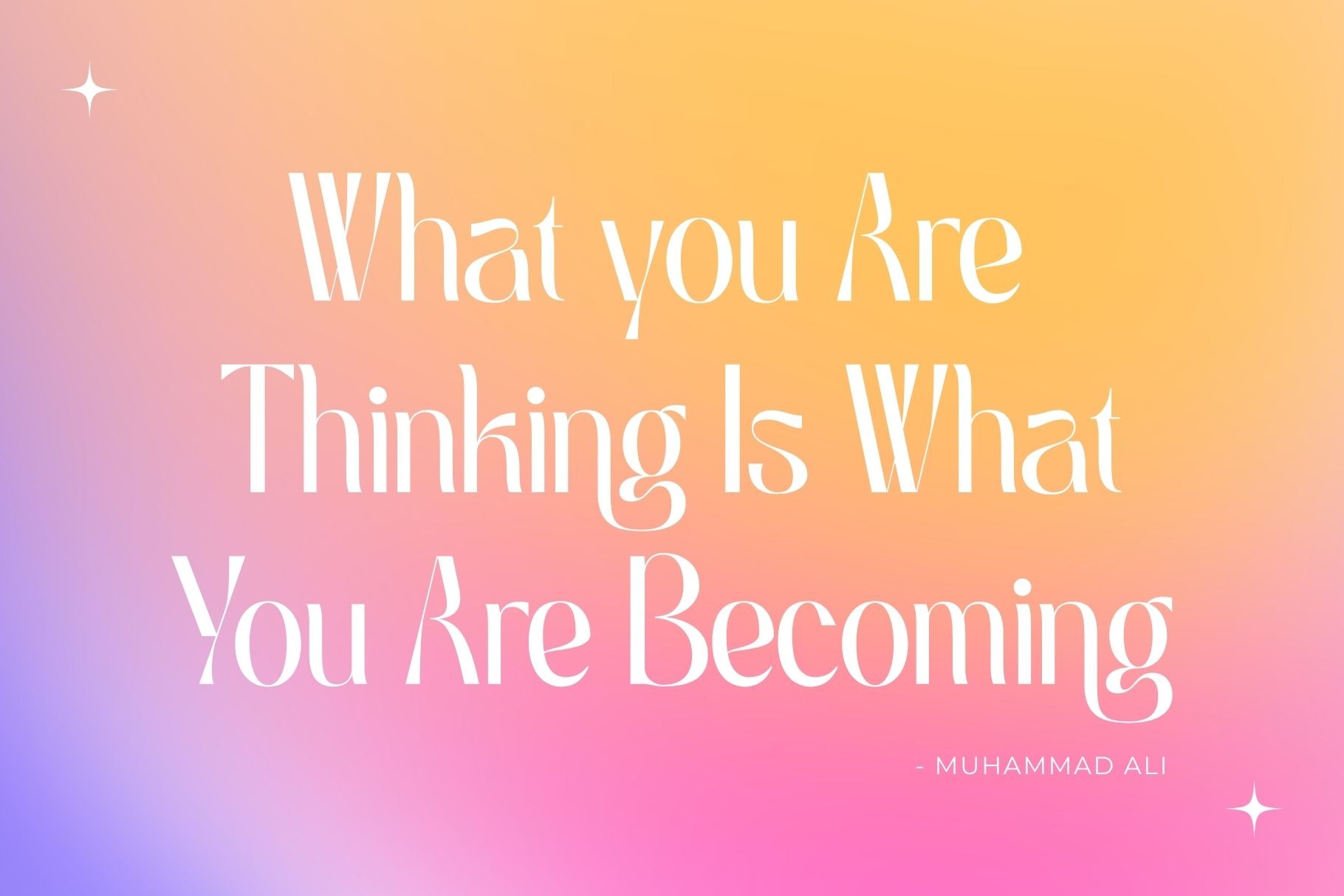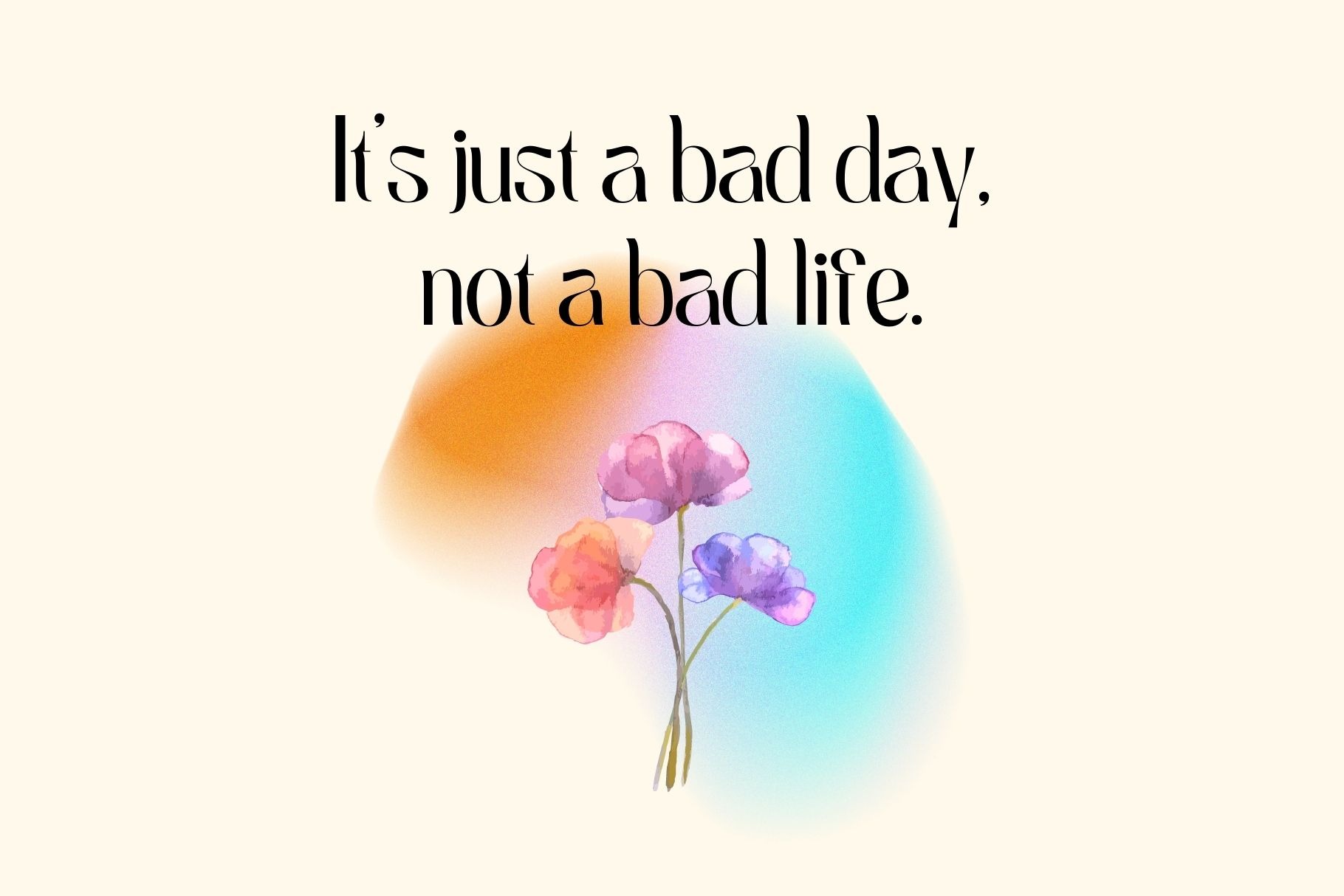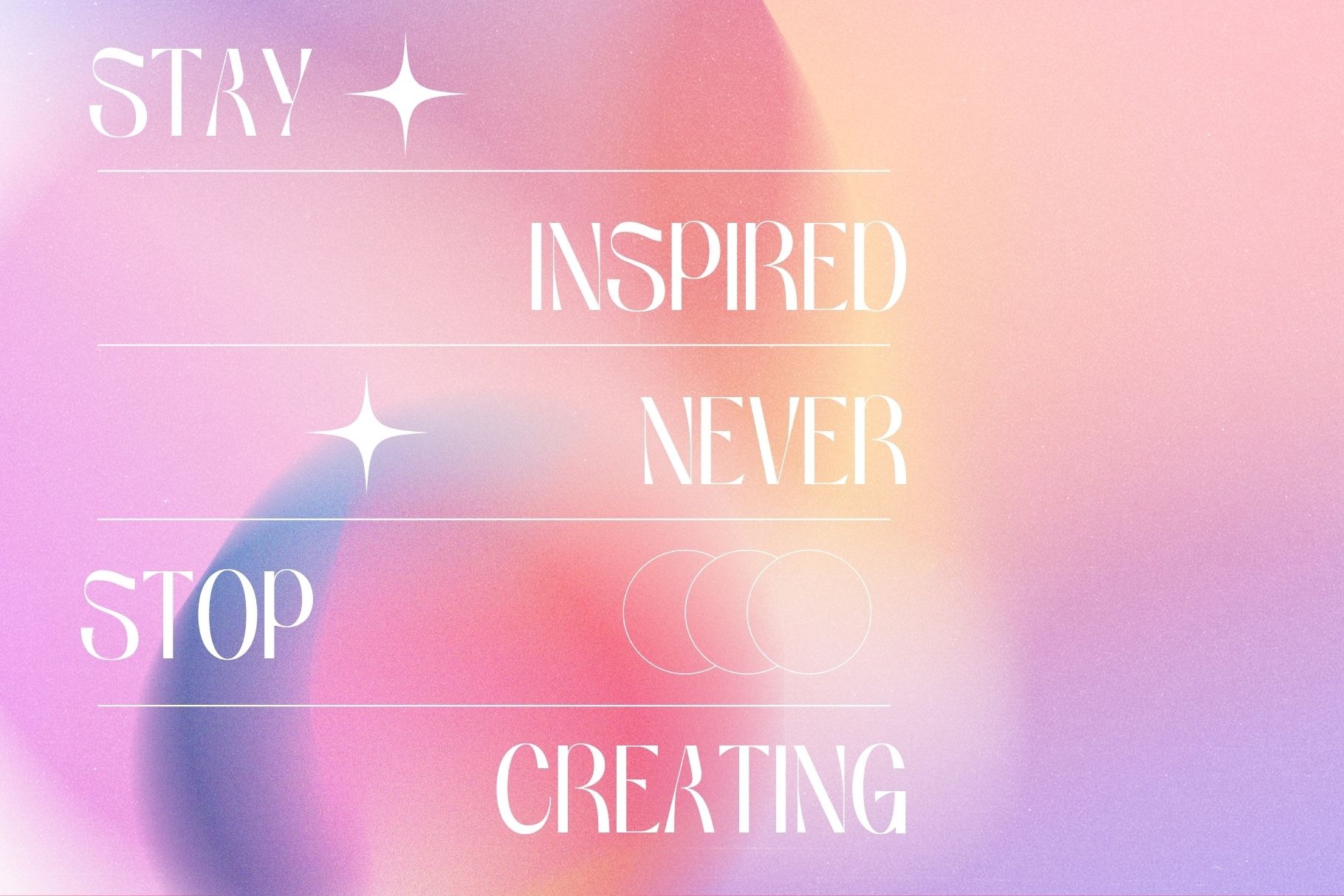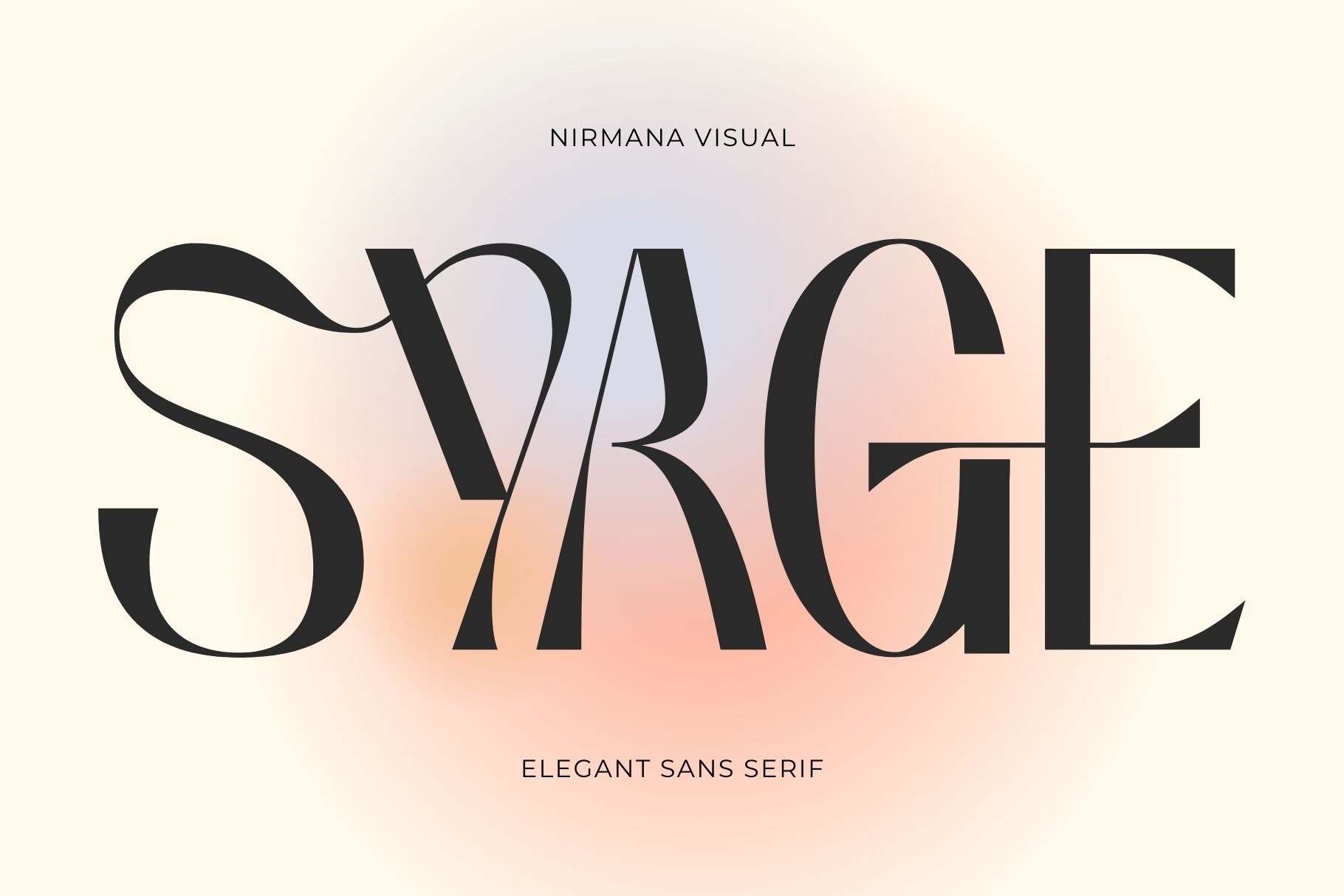
Syage Sans Serif Font
If you’re looking for an feminine typeface to attract your audiences or customers then we’ve got the font for you! Syage is a beautiful and feminine sans serif font created by a romantic and lovely look. Syage offers beautiful typographic harmony for a diversity of design projects, including logos & branding, social media posts, advertisements & product designs.